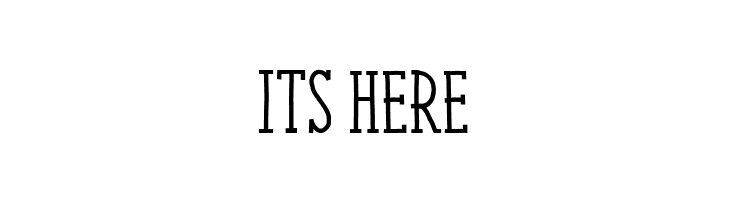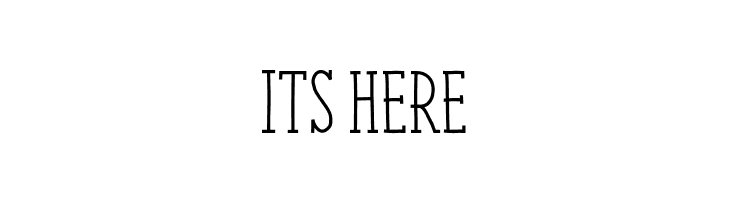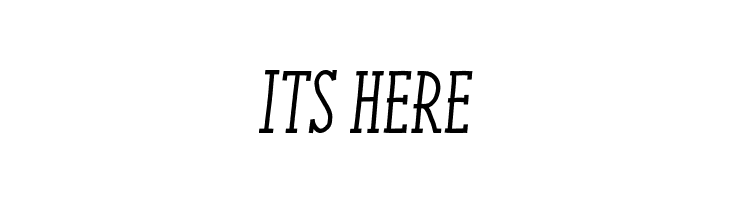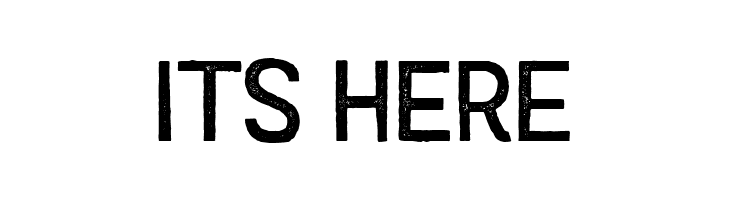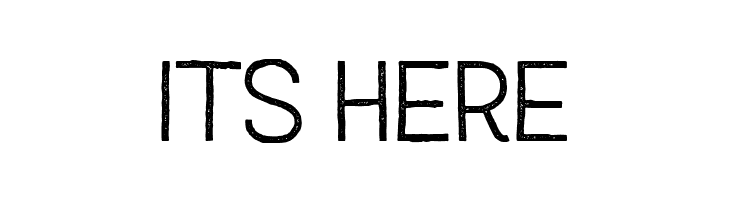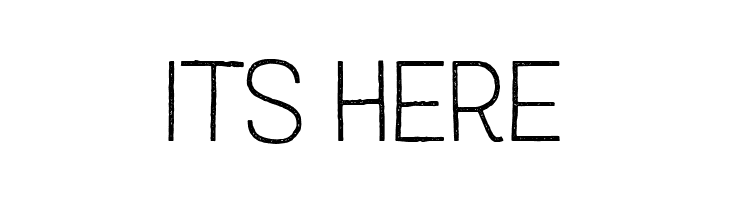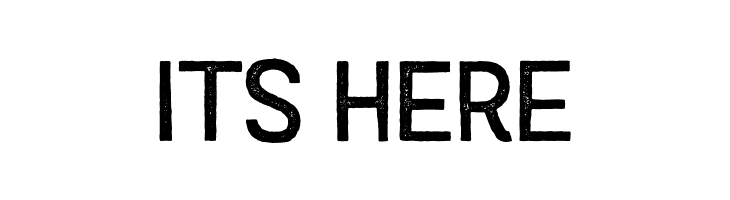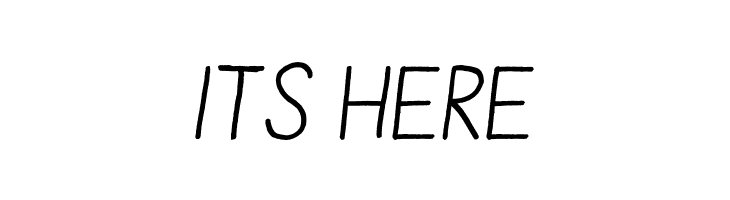
A bold, textured sans-serif font with a stamped, vintage look.
A textured, sans-serif font with a stamped, handcrafted appearance.
A thin, stamped sans-serif font with a handcrafted look.
A textured, sans-serif font with a stamped, handcrafted appearance.
A thin, modern sans-serif font with a stamped texture and minimalist design.
A bold, distressed sans-serif font with a vintage, stamped look.
A casual, handwritten font with a slight slant and consistent stroke width.
A light, handwritten-style font with thin strokes and a slight slant.
A slender, condensed, and italicized font with a modern and elegant style.
A delicate, condensed, and light italic font with a graceful and dynamic appearance.
A slender, condensed, and light font with an elegant and minimalistic design.
A slender, condensed font with thin, consistent strokes and a minimalistic design.
A modern, ultra-condensed font with tall, narrow characters and consistent stroke width.
A sleek, ultra-light, and condensed italic font with a modern and minimalist style.
A sleek, ultra-condensed italic font with a modern and dynamic style.
A modern, ultra-condensed font with tall, narrow characters and consistent stroke width.
A dynamic, ultra-condensed italic font with a modern and elegant style.
A dynamic slab serif font with an italic slant, offering a modern twist on traditional serif styles.
A medium weight, italic slab serif font with a classic yet modern appeal.
A light, italic serif font with elegant, elongated letters and subtle serifs.
A light, italic serif font with a modern and elegant style.
A robust slab serif font with medium contrast and strong serifs.
A robust slab serif typeface with strong, block-like serifs and a modern aesthetic.
A light, slab serif font with elongated strokes and thin serifs.
A dynamic slab serif font with an elegant italic slant and medium contrast.
A medium-weight, italic slab serif font with classic and elegant features.